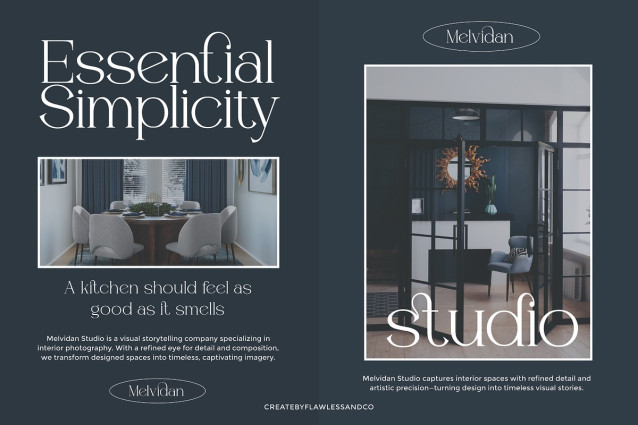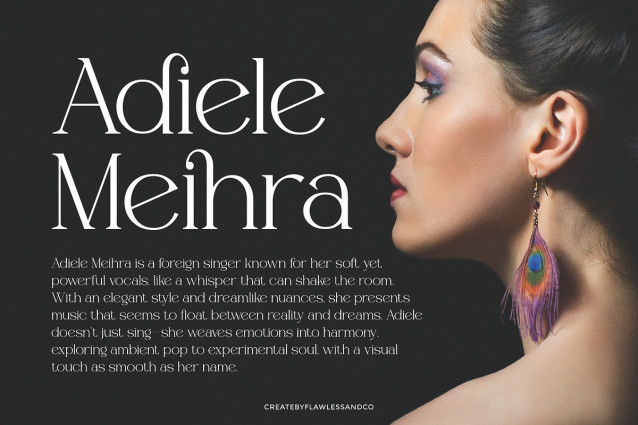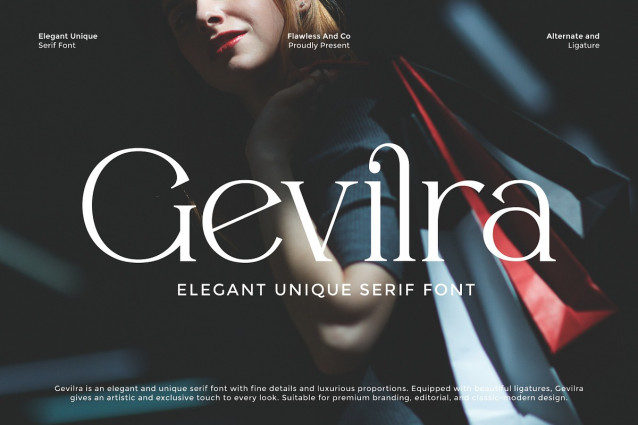
Gevilra Font
Gevilra Font is an elegant and unique serif font with fine curves and a refined aesthetic. Featuring graceful ligatures and stylish alternates, Gevilra brings a sophisticated and contemporary charm to any project. Its luxurious personality makes it a perfect choice for high-end branding, editorial layouts, fashion, and timeless design concepts.